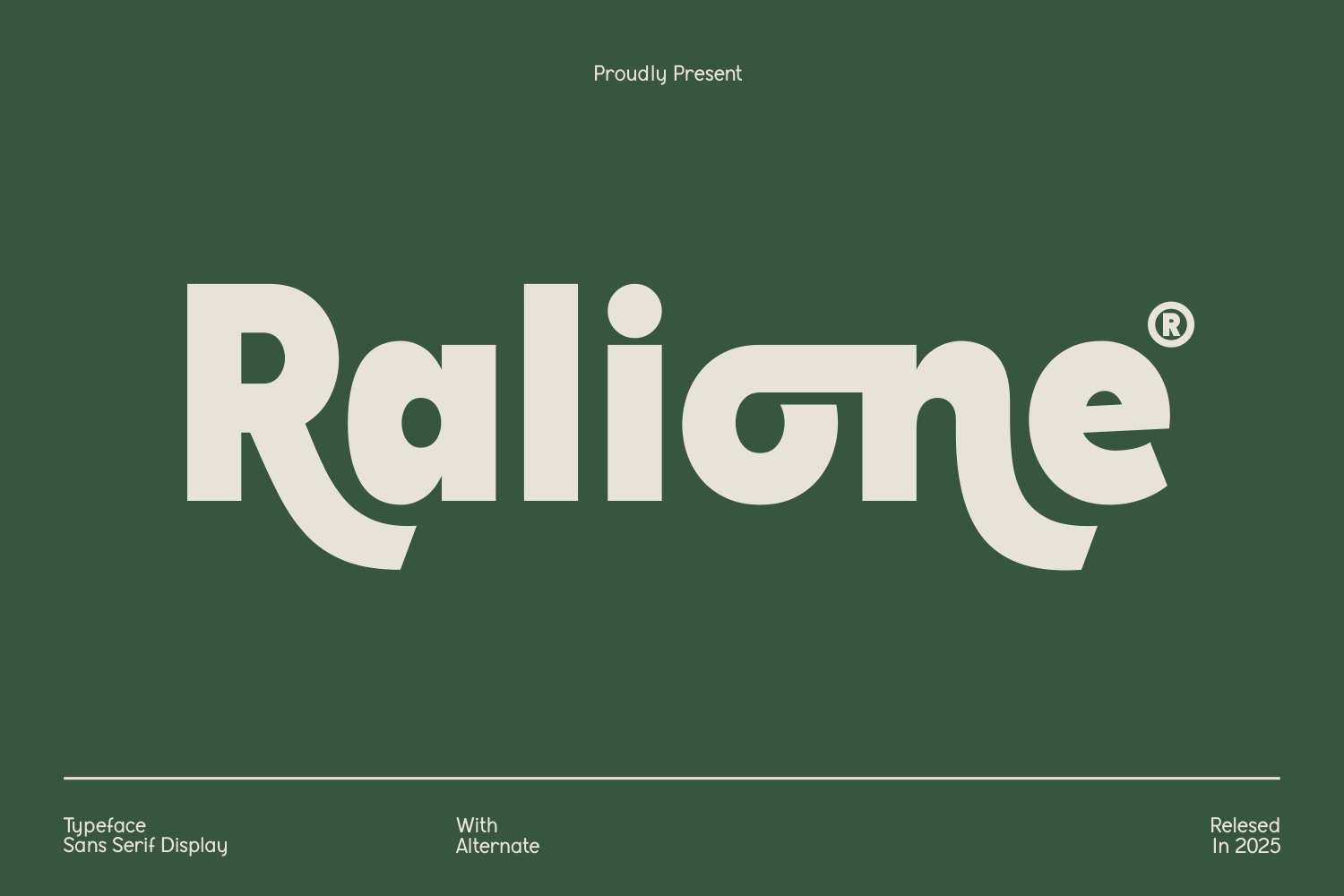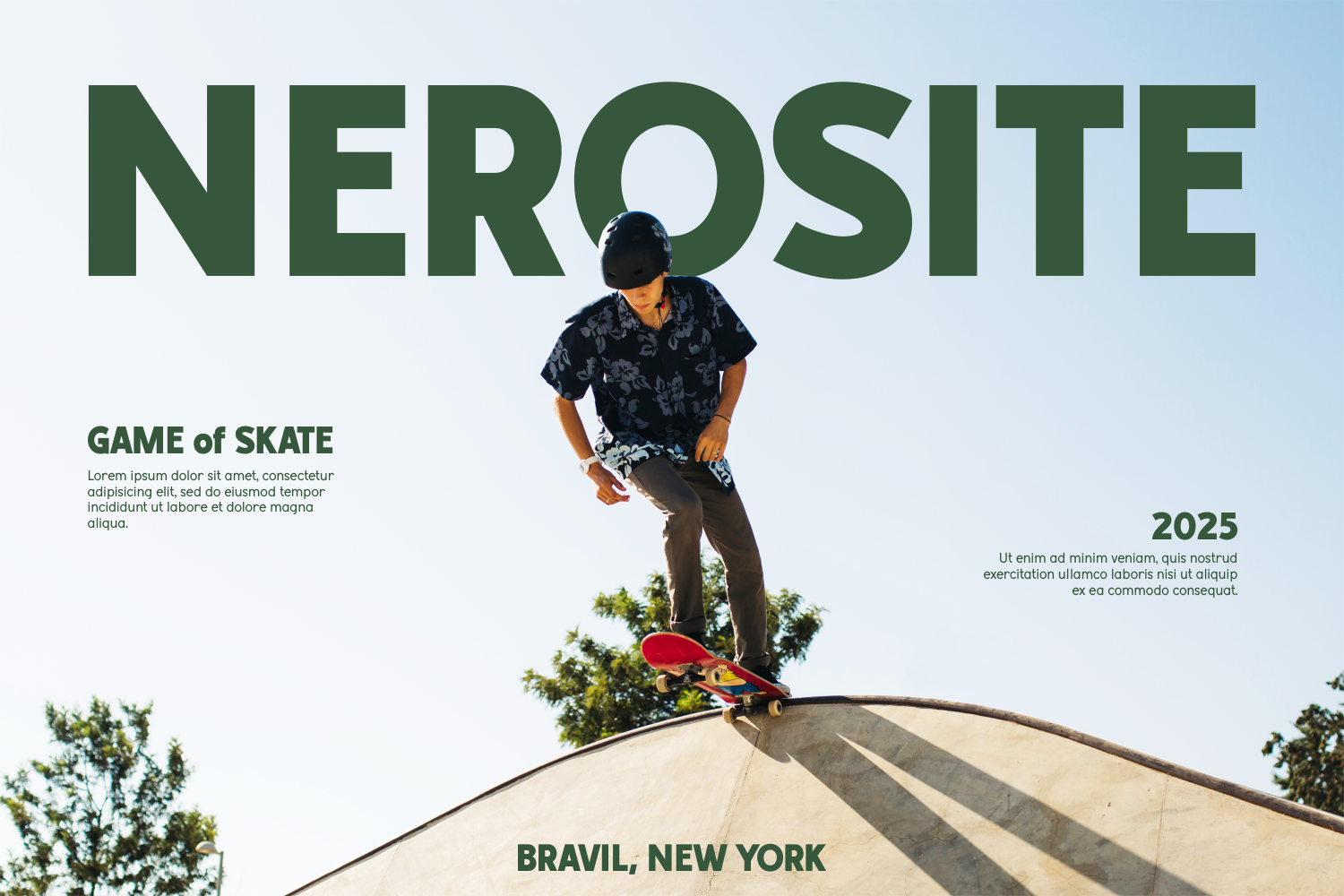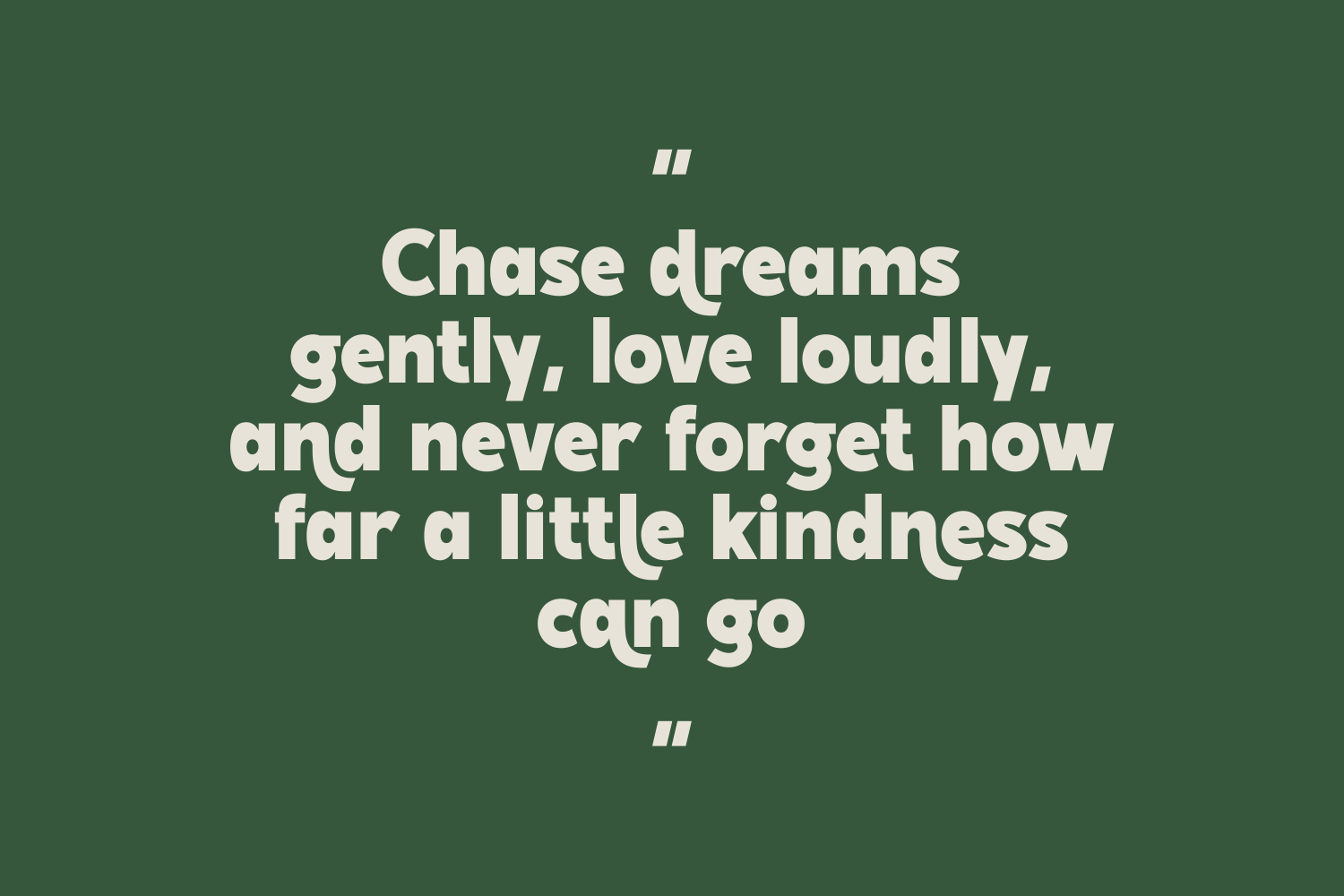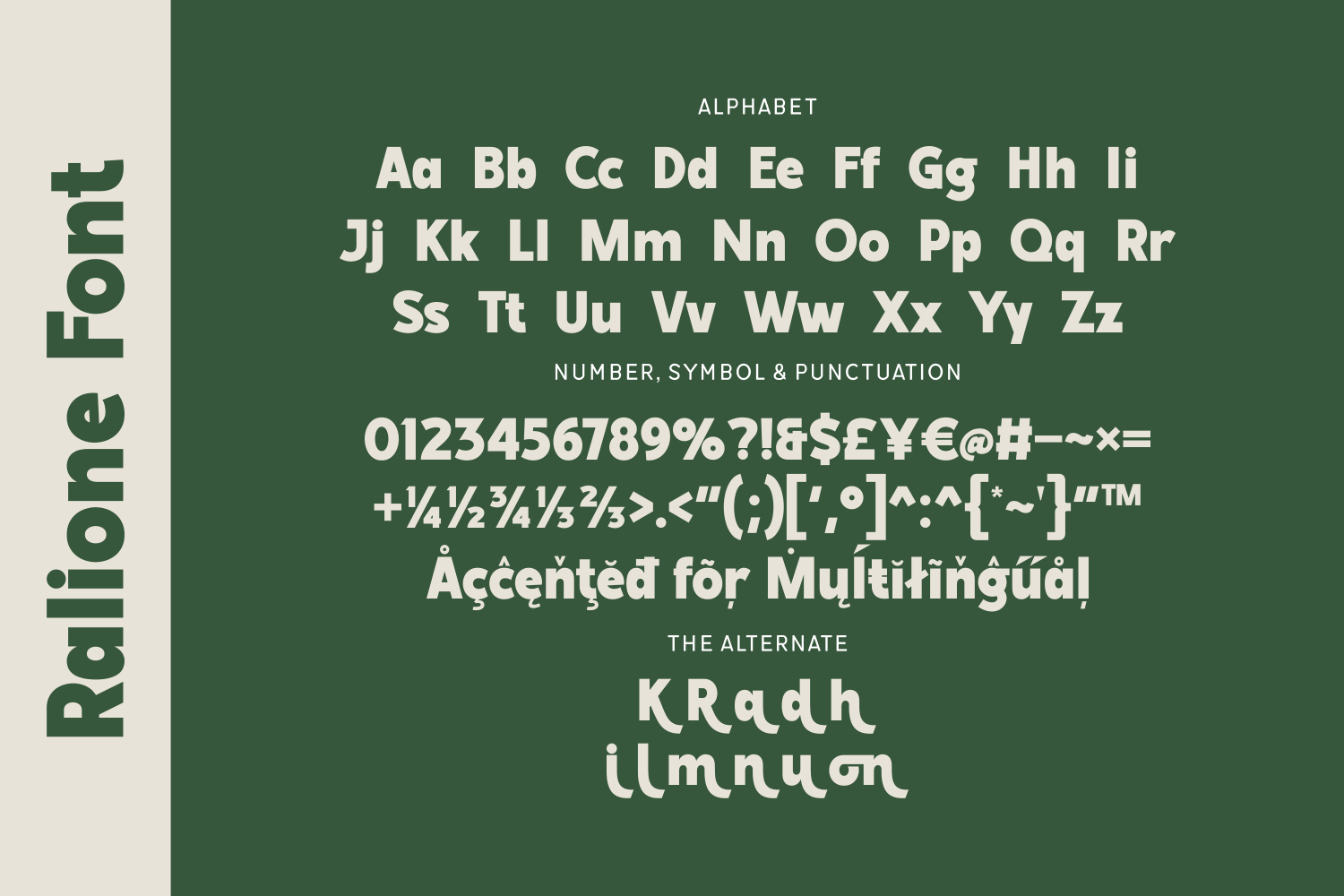
Ralione is a playful sans serif display typeface with smooth curves and unique alternates. Its creative letter shapes lend a fresh and stylish vibe, perfect for logos, social media, and eye-catching packaging projects.